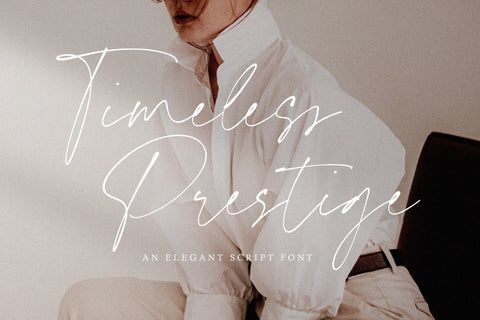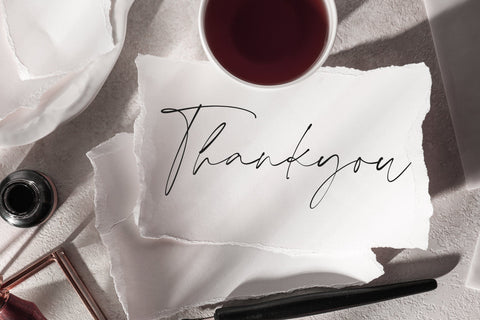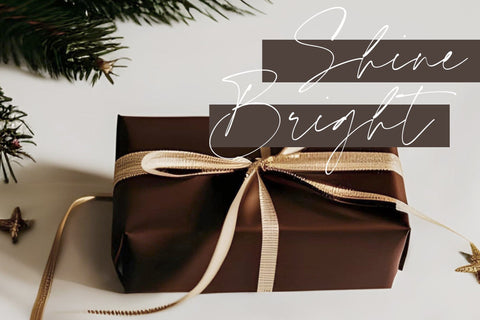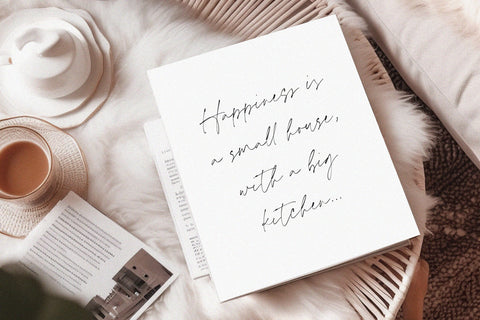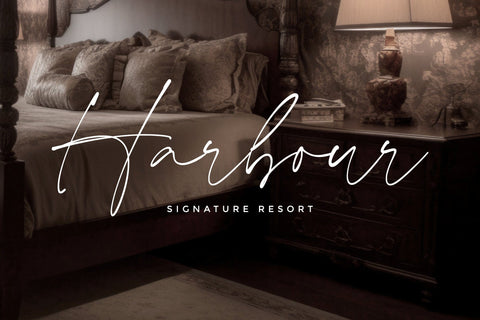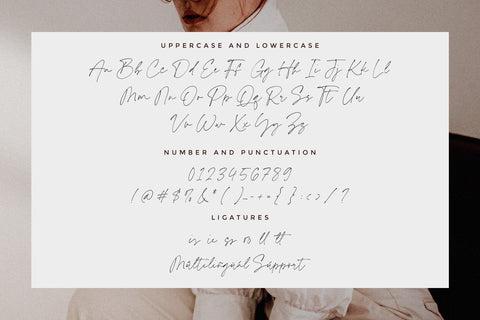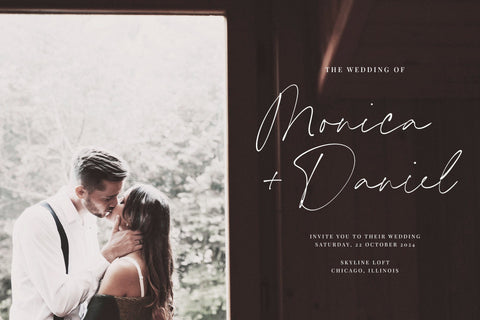
Timeless Prestige - elegant Script font
Introducing by Timur type
Proudly Present, Timeless Prestige
Rightwood A elegant Script Font , which was created with great care and specially created for you š
Timeless Prestige is perfect for product packaging, branding project, megazine, social media, wedding, or just used to express words above the background.